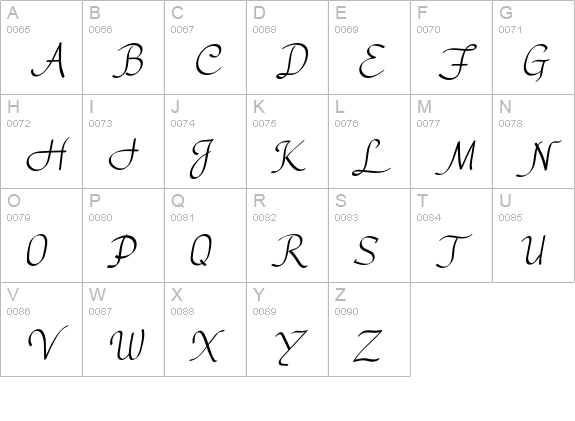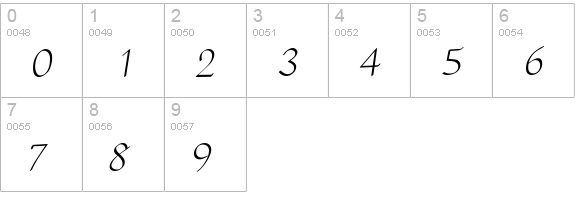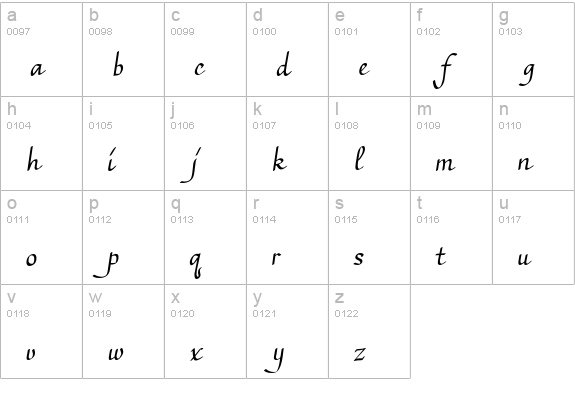
CK Serendipity Font Details
Introducing CK Serendipity, a whimsical and playful font that exudes charm and creativity. With its unique hand-drawn style and elegant curves, CK Serendipity is perfect for adding a touch of personality to your projects. Whether you're designing invitations, logos, or branding materials, this font will make your text stand out in a delightful way. The best part? CK Serendipity is available for free download at FontsMarket.com. That's right, you can easily access this stunning font without any cost, making it a must-have addition to your design toolkit. Embrace the serendipity of creative expression with CK Serendipity and elevate your designs to new heights.